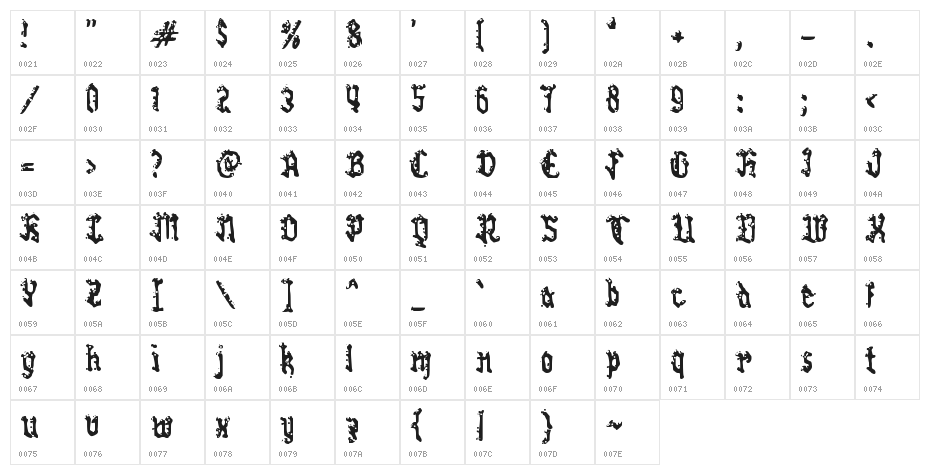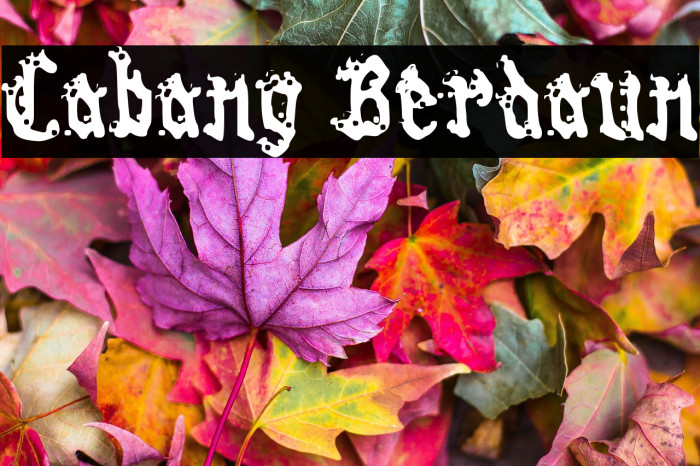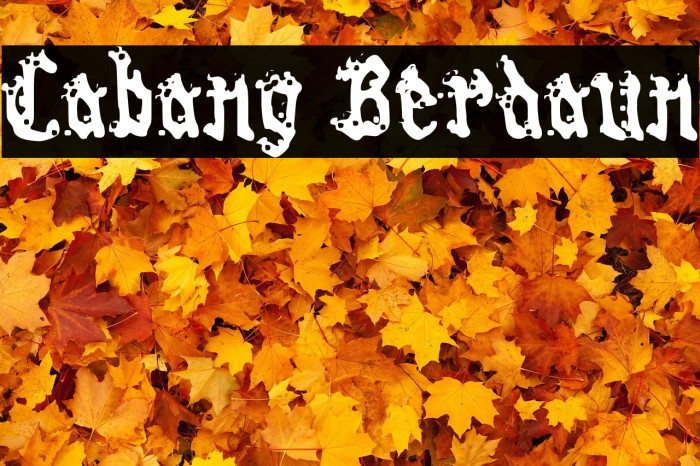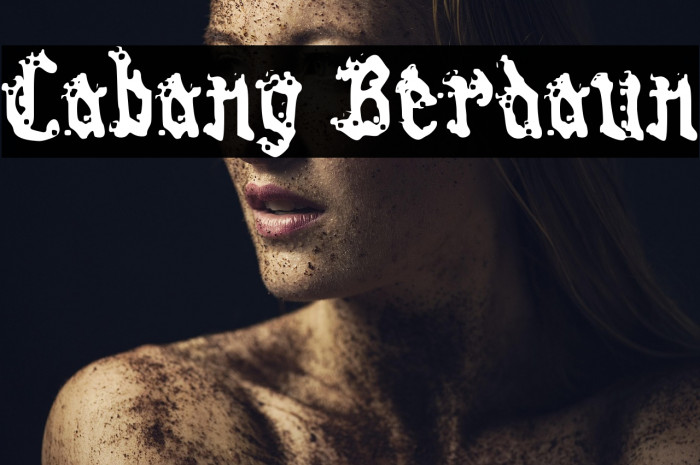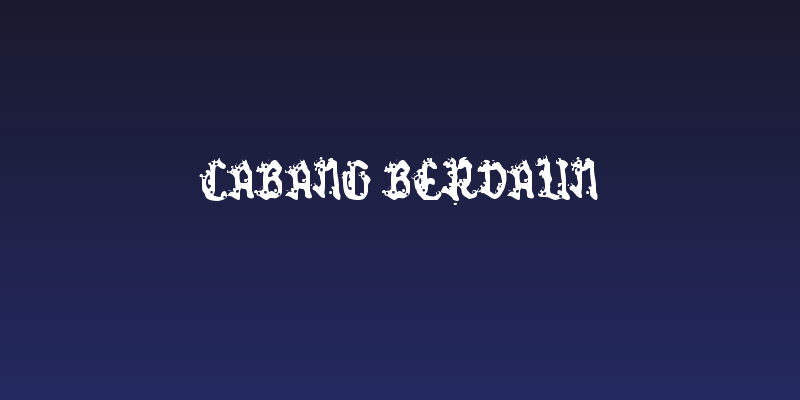
Cabang Berdaun Font
Cabang Berdaun Description
This font features an intricate design with a gothic and organic appearance, reminiscent of branches or vines intertwining through each character. The letters are bold and have a decorative style, with unique embellishments that give them a slightly chaotic yet artistic look. The uppercase and lowercase letters maintain a consistent style, with numerals and special characters following the same theme. The font's distinctiveness makes it stand out, suitable for projects that require a dramatic and eye-catching typeface.
| Overall Style | Gothic, Decorative |
| Use Case | Headlines, Posters, Logos |
| Proposed Projects | Ideal for Halloween-themed designs, fantasy book covers, gothic posters, or any project needing a dramatic and artistic touch. |